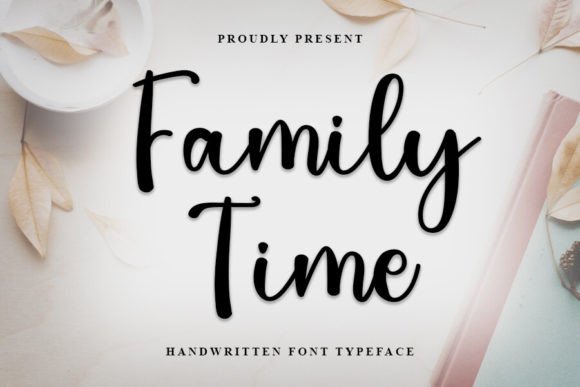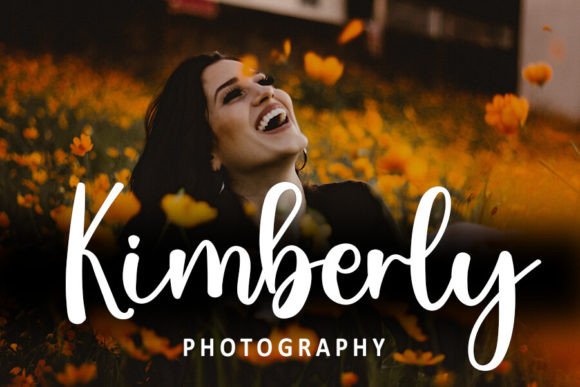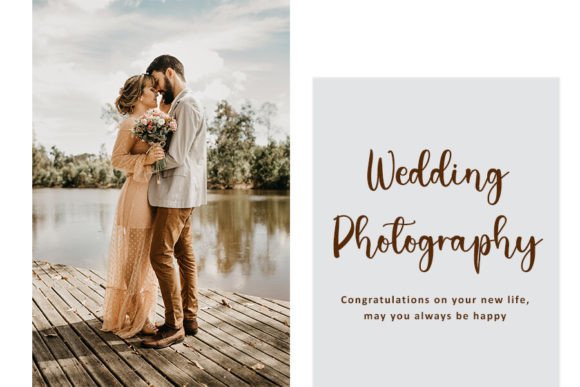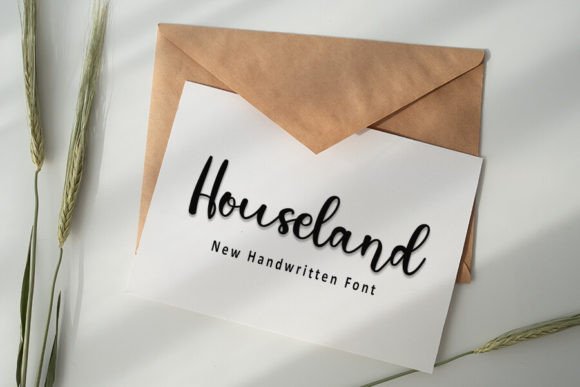
Family Time Font
About the Family Time Font
We are excited to introduce Family Time Font, a must-have typeface for any serious designer. Family Time is a festive and merry typeface that captures the spirit of the holiday season. With its decorative elements and whimsical flair, it adds a touch of enchantment to your designs. Perfect for greeting cards, gift tags, and holiday-themed projects, this font brings a cheerful and nostalgic ambiance to your words. Let your typography shine with the magic of Christmas Font!
Family Time’s playful, decorative style shines in headlines, short slogans, and festive packaging designs. It’s ideal for projects needing a whimsical, celebratory feel, such as children’s books, holiday promotions, or branding for businesses with a lighthearted image. However, its decorative nature makes it less suitable for body text or UI elements where readability is paramount.
Pairing Family Time with a clean sans-serif like Open Sans for body copy provides excellent contrast and enhances readability. For a more elegant feel, consider pairing it with a classic serif like Garamond. Avoid pairing it with other highly decorative fonts, which might create visual clutter.
Its core personality is undeniably cheerful and nostalgic, making it a strong choice for projects aiming for a warm, inviting atmosphere. Think handcrafted goods, family-oriented businesses, or events celebrating joy and togetherness.
Family Time Font Usage Examples
Family Time Font Example